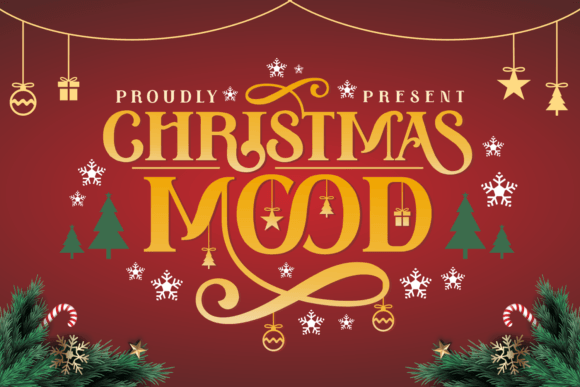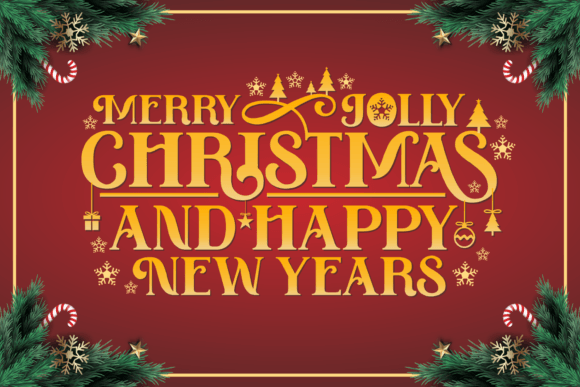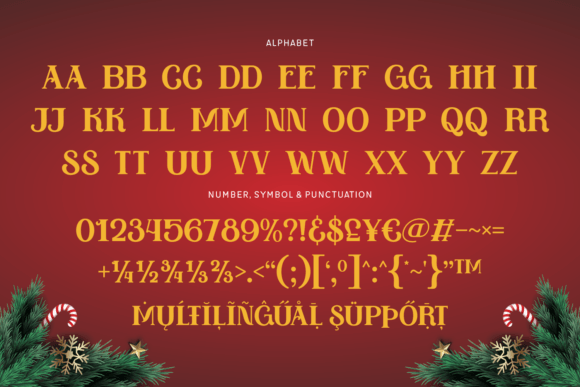
Christmas Mood Font
Christmas Mood will bring all the Holiday vibes to your festive crafts and projects. It has a modern yet whimsical style and it will undoubtedly immerse your designs into a magical world. This font is PUA encoded which means you can access all the glyphs and ligatures with ease!